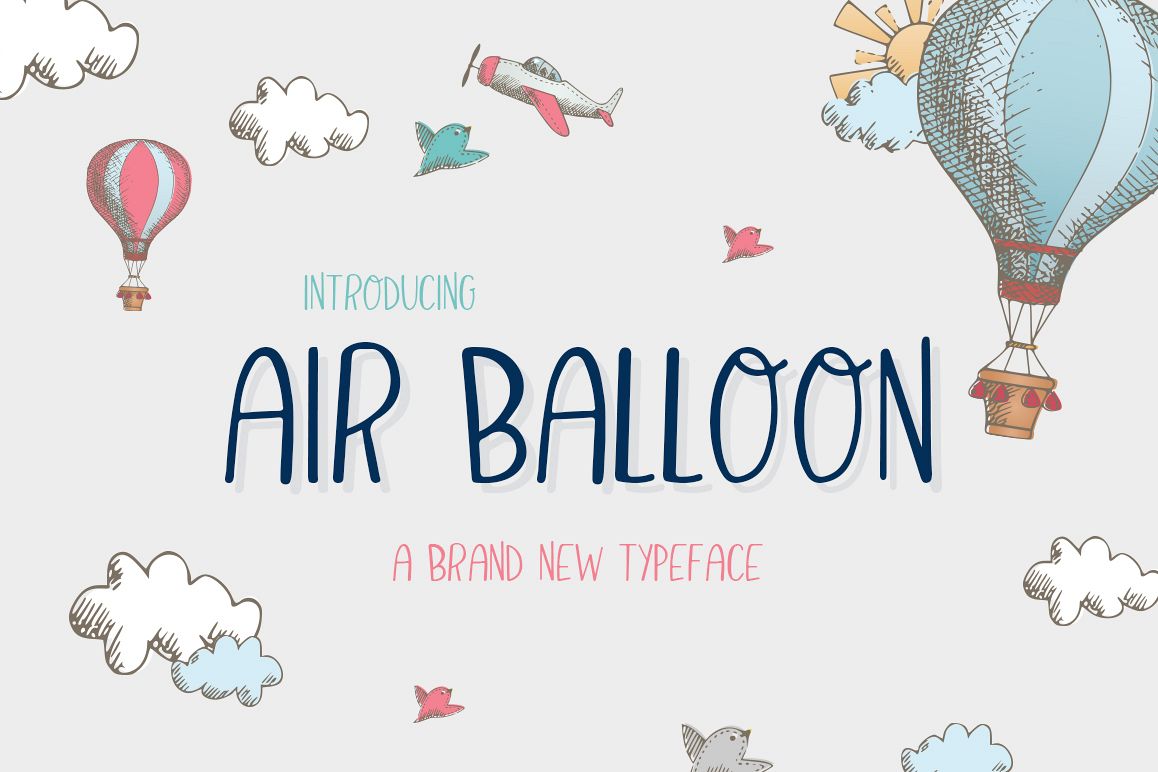
This font can take your design 'Up, Up and Awayyyyy!' Air Balloon is cute, fun and whimsical! Not only is it hand drawn but it's easily legible at all sizes! Making it a perfect pairing font but also strong enough to stand alone! Just see for yourself...